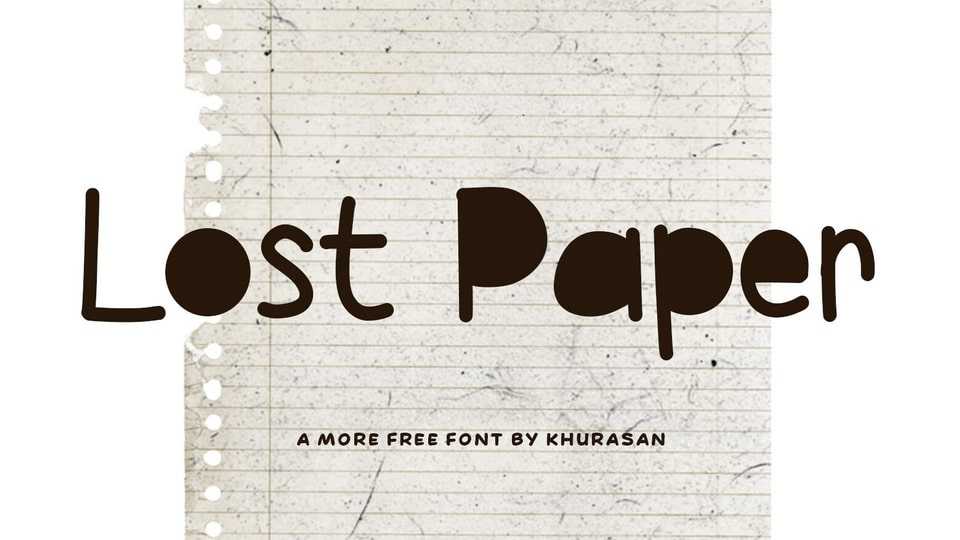
Download Lost Paper font, a whimsical and playful hand-drawn typeface that radiates joy and creativity. Lost Paper font is crafted with care, capturing the carefree spirit of doodles and adding a delightful touch to your designs.